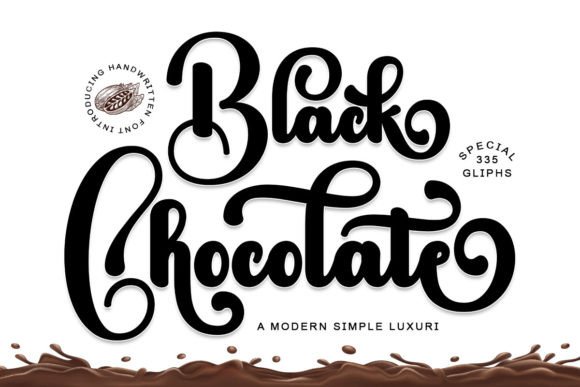
Introducing Black Chocolate Font: Elevate Your Designs with Elegance and Sophistication
In the world of typography, the right font can make all the difference in transforming your design from ordinary to extraordinary. If you’re looking for a font that exudes elegance, sophistication, and a touch of luxury, look no further than the Black Chocolate Font. This beautiful calligraphy script font is designed to add a sweet and refined touch to your projects, making it perfect for a variety of applications, from formal invitations to stylish cards and designs.
The Characteristics of Black Chocolate Font
Black Chocolate Font is an elegant and tasteful calligraphy script font that boasts graceful strokes and flowing curves. Its unique design gives your text a touch of sophistication, making it stand out from the crowd. The font’s refined appearance is perfect for projects that demand a mix of style and charm, adding a luxurious feel to your designs.
One of the key features of Black Chocolate Font is its PUA (Private Use Area) encoding. This means that you can access all of its amazing glyphs and ligatures with ease, giving you greater flexibility and creative control over your typography. With PUA encoding, you can unlock the full potential of the font and take your designs to the next level.
Uses of Black Chocolate Font
Black Chocolate Font is a versatile font that can be used in a variety of applications. Here are some of the most popular uses of this beautiful font:
- Invitations: Whether you’re planning a wedding, birthday party, or other special event, Black Chocolate Font is the perfect choice for your invitations. Its elegant and sophisticated design sets the tone for a memorable occasion.
- Cards: From greeting cards to thank-you cards, Black Chocolate Font adds a touch of luxury and refinement to your designs. Its flowing curves and graceful strokes make it perfect for expressing your thoughts and feelings.
- Designs: Black Chocolate Font can also be used in a variety of design projects, from branding and packaging to advertising and marketing materials. Its unique design and sophisticated appearance make it perfect for adding a touch of elegance to your designs.
The Benefits of Using Black Chocolate Font
There are many benefits to using Black Chocolate Font in your designs. Here are some of the most significant advantages:
- Elegance and Sophistication: Black Chocolate Font adds a touch of elegance and sophistication to your designs, making it perfect for formal and informal applications.
- Versatility: Black Chocolate Font is a versatile font that can be used in a variety of applications, from invitations and cards to designs and marketing materials.
- Easy to Use: Black Chocolate Font is easy to use and requires no special technical expertise. Its PUA encoding makes it easy to access all of its glyphs and ligatures.
- Unique Design: Black Chocolate Font has a unique design that sets it apart from other fonts. Its flowing curves and graceful strokes make it perfect for adding a touch of luxury and refinement to your designs.
Tips for Using Black Chocolate Font
Here are some tips for using Black Chocolate Font in your designs:
- Use it Sparingly: Black Chocolate Font is a elegant and sophisticated font, so use it sparingly to avoid overwhelming your design.
- Pair it with Other Fonts: Black Chocolate Font can be paired with other fonts to create a unique and visually appealing design.
- Experiment with Different Sizes: Black Chocolate Font can be used in a variety of sizes, from large headings to small body text.
- Take Advantage of PUA Encoding: Black Chocolate Font’s PUA encoding makes it easy to access all of its glyphs and ligatures. Take advantage of this feature to add more creativity and flexibility to your designs.
In conclusion, Black Chocolate Font is a beautiful and elegant calligraphy script font that can add a touch of sophistication and luxury to your designs. Its unique design, versatility, and ease of use make it perfect for a variety of applications, from invitations and cards to designs and marketing materials. With its PUA encoding and range of glyphs and ligatures, Black Chocolate Font is a great choice for anyone looking to elevate their typography and take their designs to the next level.